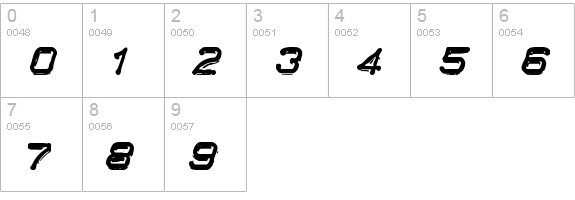
Embossing Tape 2 (BRK) Font Details
Embossing Tape 2 (BRK) font is a captivating and elegant typeface that adds a touch of sophistication to any design project. Its unique embossed effect gives a sense of depth and texture, making it stand out from other fonts. The bold and impactful letterforms make a statement while maintaining a sense of refinement. This versatile font is perfect for a wide range of design applications, from logos and branding to invitations and packaging. Whether you're looking to create a modern and sleek aesthetic or add a touch of vintage charm, Embossing Tape 2 (BRK) font is sure to elevate your design. And the best part? It's completely free to download at FontsMarket.com! So why wait? Add this stunning font to your collection today and take your designs to the next level.